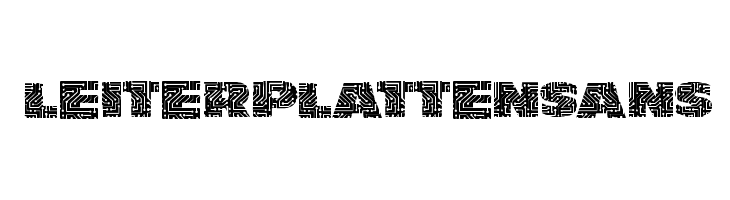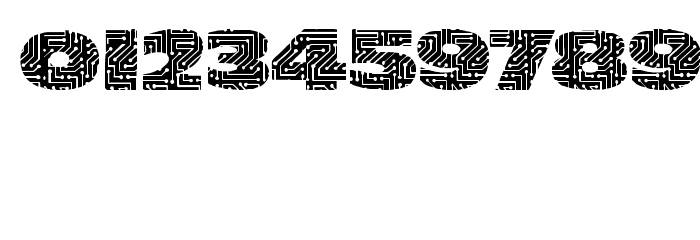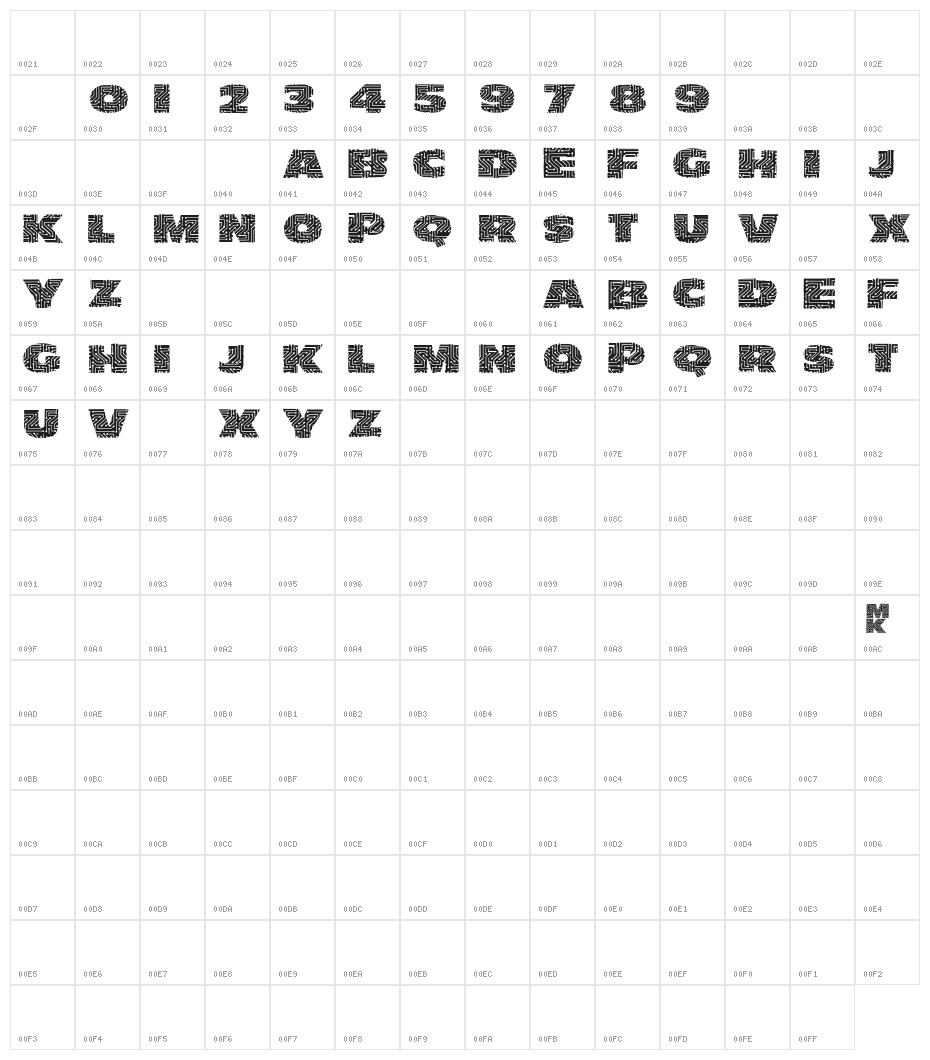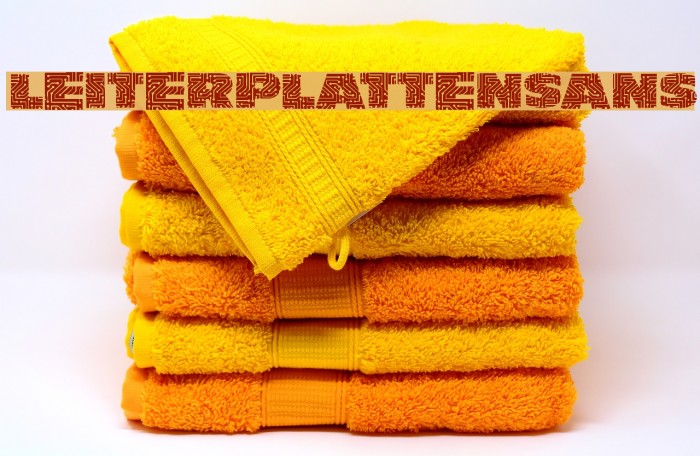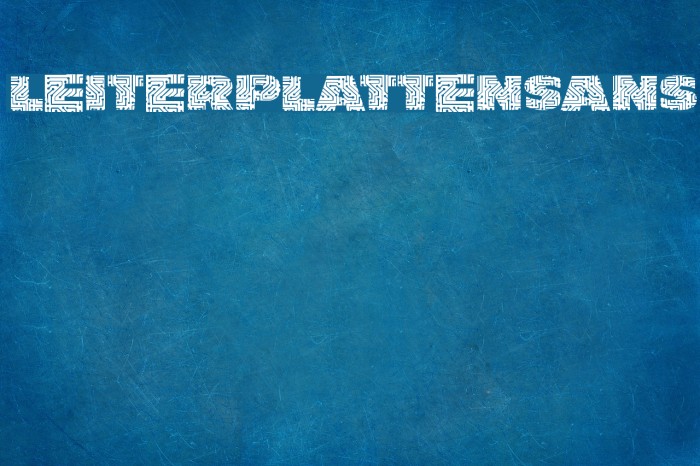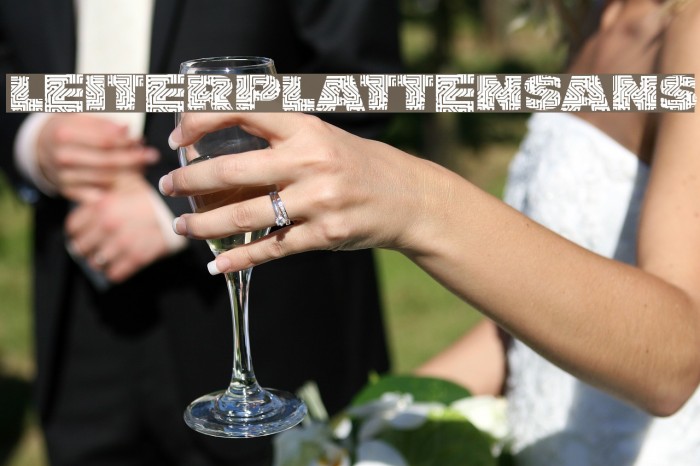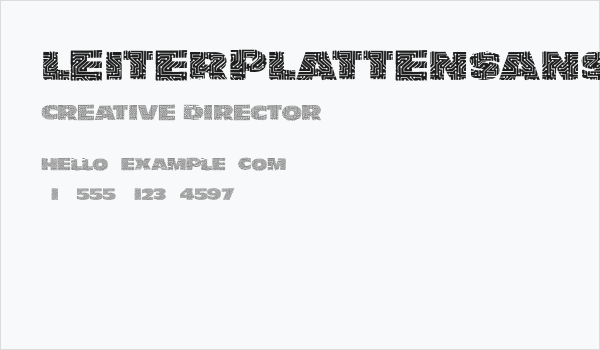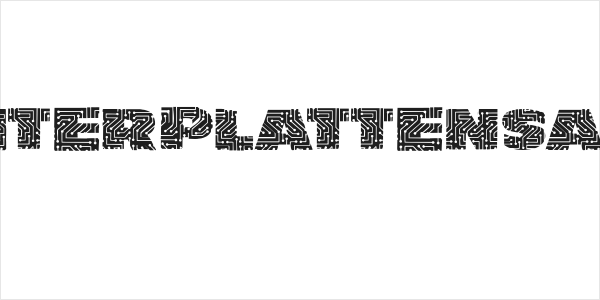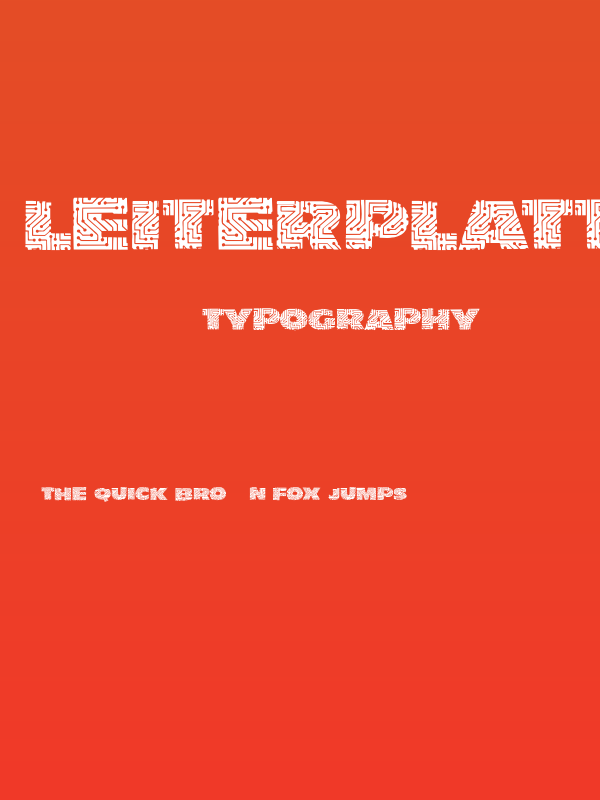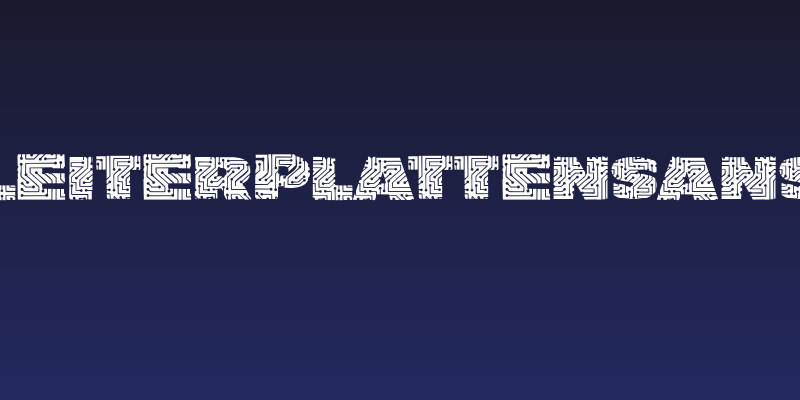
LeiterplattenSans Font
LeiterplattenSans Description
This font features a unique and intricate design inspired by circuit board patterns. Each character is filled with detailed, maze-like lines that mimic the pathways found on electronic boards, giving it a highly technical and futuristic appearance. The uppercase and lowercase letters, as well as numbers and special characters, maintain this consistent theme, making it ideal for projects that require a tech-savvy or digital aesthetic. The bold and complex design ensures that the font stands out, making it suitable for eye-catching headlines or logos.
| Proposed Projects | Ideal for technology-themed posters, digital art, branding for tech companies, and futuristic design projects. |